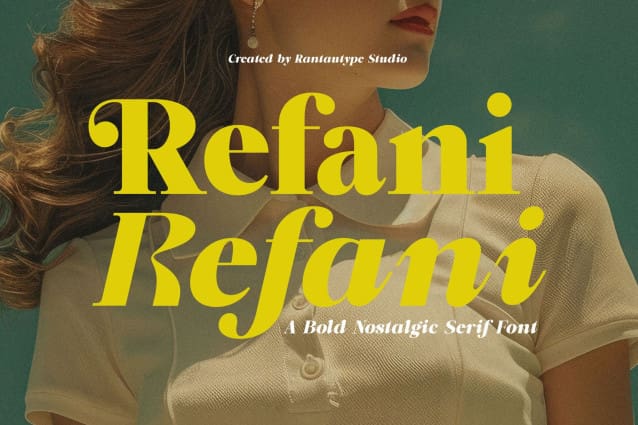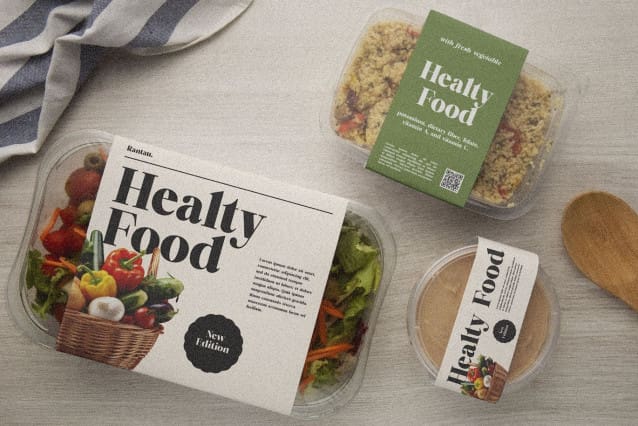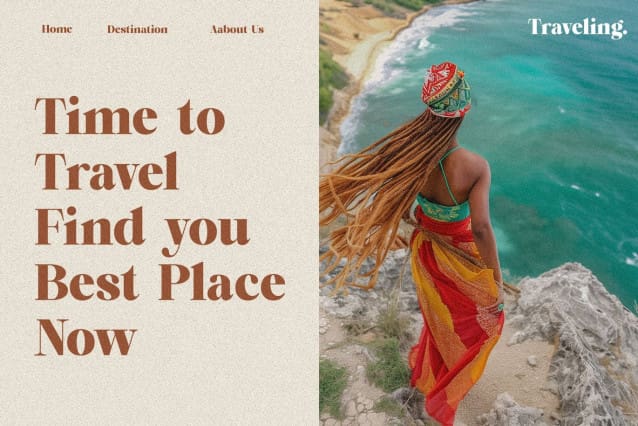
Refani Font
Refani Font is a Serif inspired by an 80s elegance magazine with a complementary italic version. Refani offers a bold form that combines strength, luxury and grace. Both versions are offered in two versions, one more contrasting and sharper than the other. In true 80s style, the combination of regular and italic makes it nostalgic yet elegant, mix and match them to create a creative design project. With its versatility and contemporary appeal.
Refani Font is a great choice for any creative endeavor, creating elegant, modern and chic lifestyle designs such as logos, headline, cover, branding, invitations, wedding designs, displays and magazines, social media posts, advertisements, print quotes, product packaging, corporate branding, product designs, labels, photography, watermarks, special events and any other projects with a nostalgic or elegant touch.